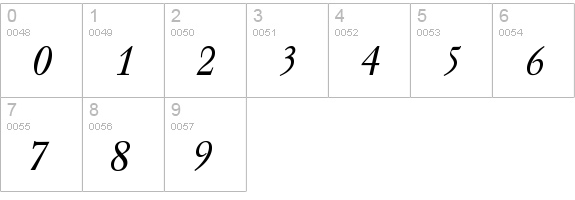
Walbaum Standard Italic Font Details
Walbaum Standard Italic is a distinctive, italic variant in the Walbaum typeface family \xE2\x80\x94 well suited to design and typography projects.
Walbaum Standard Italic is a striking and elegant font that exudes a sense of timeless sophistication. With its graceful letterforms and subtle curves, this italic variant of the renowned Walbaum Standard typeface adds a touch of refined flair to any design project. The italicized slant of Walbaum Standard Italic effortlessly conveys a sense of motion and dynamism, making it an excellent choice for conveying emphasis or adding a touch of flair to headlines, quotes, or important text. Its distinctive style captures attention and creates a sense of visual interest, making it a perfect fit for luxury brands, fashion magazines, or high-end editorial layouts. This font's versatility is further enhanced by its availability in a wide range of weights, allowing designers to create harmonious typographic compositions by pairing different variations within the Walbaum Standard family. From light and delicate to bold and impactful, this font offers endless possibilities for expressing creativity and creating a cohesive visual identity. Moreover, what sets Walbaum Standard Italic apart is that it is freely available to download at FontsMarket.com. This means that designers and enthusiasts alike can access this exquisite font without any cost, making it a fantastic option for those on a budget or who simply appreciate the value of free resources. So, whether you're working on a branding project, designing an eye-catching poster, or creating a visually stunning website, Walbaum Standard Italic is the perfect companion to elevate your typography game. With its timeless elegance, versatile weights, and free availability, this font is a must-have for any discerning designer seeking to make a lasting impression.